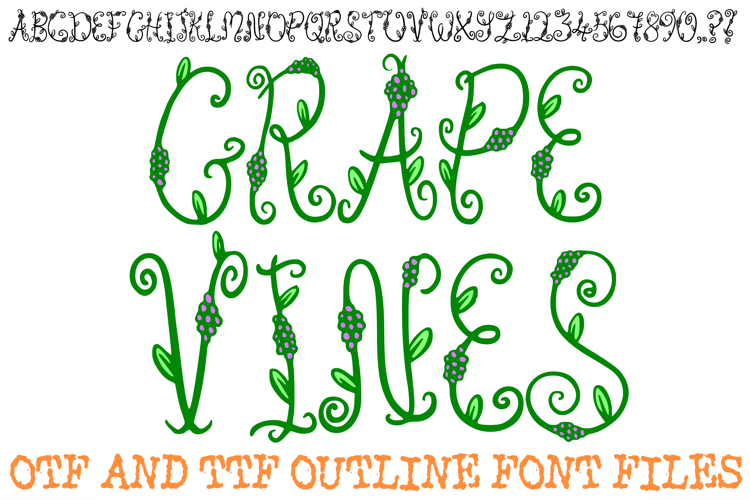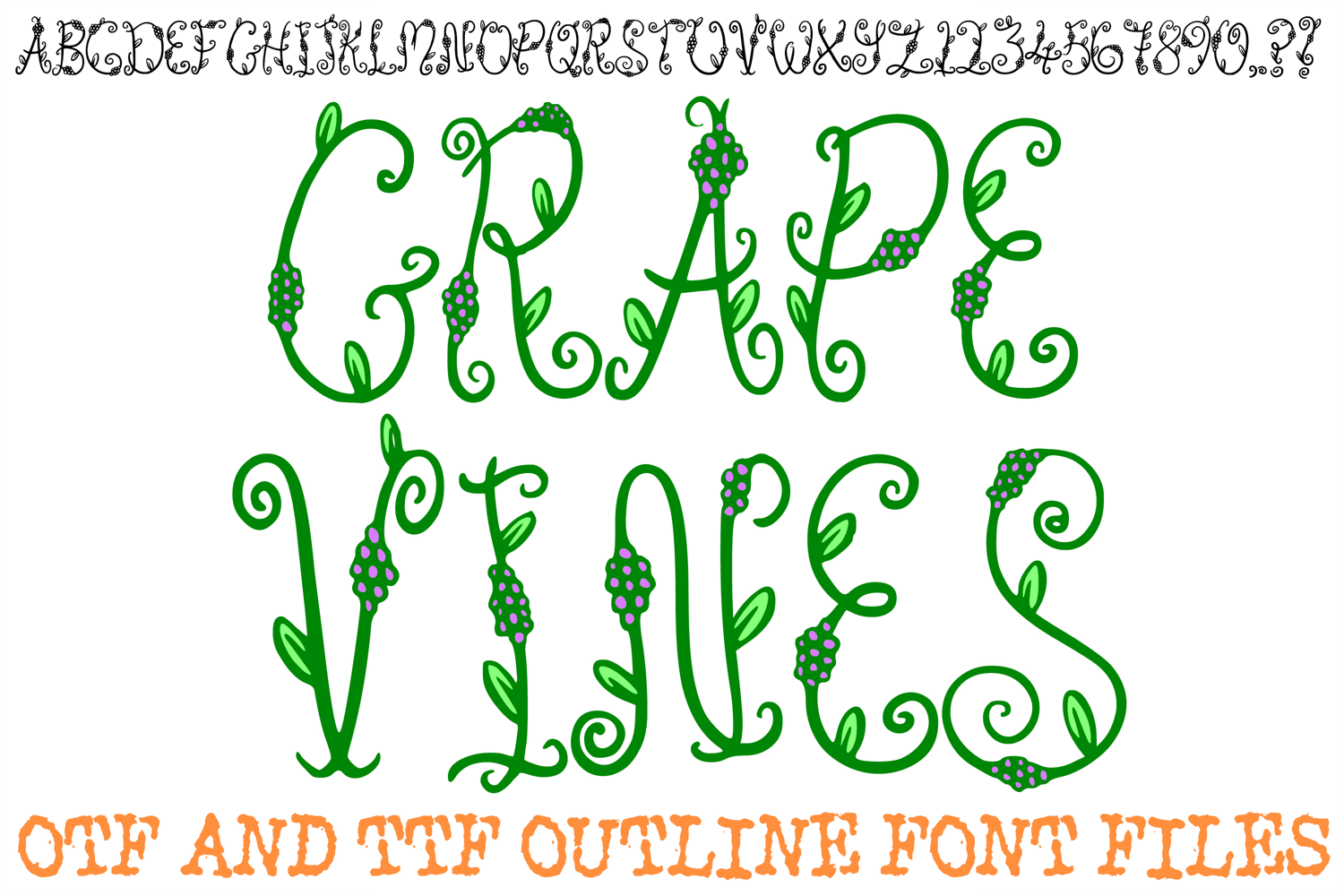
Grape Vine Font Whimsy Swirly Food Lettering Type ABC OTF
Add a refreshing, organic touch to your creative projects with the Grape Vine Font! This enchanting display typeface is intricately designed with winding green vines, delicate leaves, and clusters of purple grapes integrated into every letter. It is the perfect choice for winery branding, garden-themed decor, summer party invitations, and any design that needs a whimsical, nature-inspired aesthetic.
The flowing, swirly lines of the vines provide a sense of movement and elegance, making it an eye-catching focal point for both digital and print media. Whether you are designing labels for artisanal jams, creating a custom sign for a kitchen, or working on a garden-themed scrapbook, the Grape Vine Font offers a professional yet handcrafted feel that celebrates the beauty of the vineyard.
Botanical Artistry: Each character is a unique piece of doodle art featuring climbing vines and realistic grape clusters.
Vibrant Floral Aesthetic: The combination of swirling green stems and purple fruit adds instant color and texture to your text.